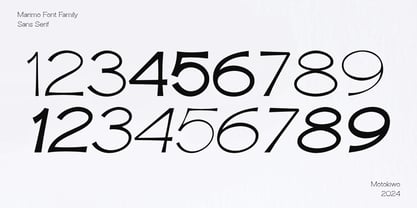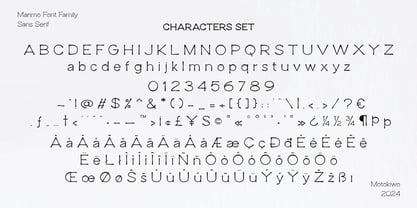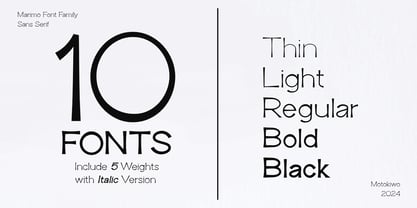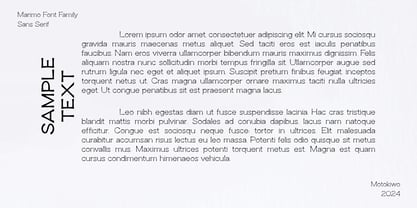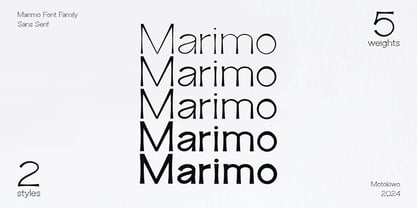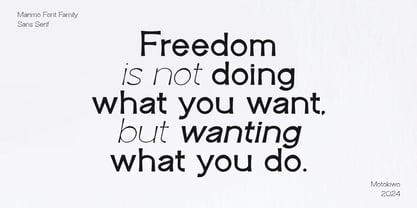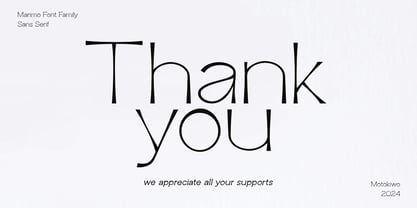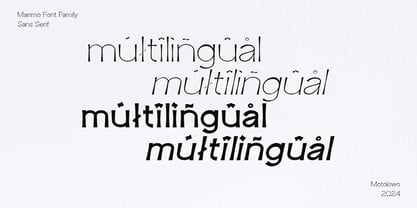
Marimo
by Motokiwo
The Marimo Font Family was designed by Anton Cahyono and published by Motokiwo. Marimo contains 10 styles and family package options. More about this family
Marimo is a sophisticated minimalist font family that embodies elegance and simplicity. With five distinct weights and accompanying italic versions, it offers versatility for various design applications, making it ideal for both print and digital media. The clean lines and refined aesthetics of Marimo ensure that your text stands out while maintaining a classy appearance, perfect for modern branding and creative projects.
Designers: Anton Cahyono
Foundry: Motokiwo